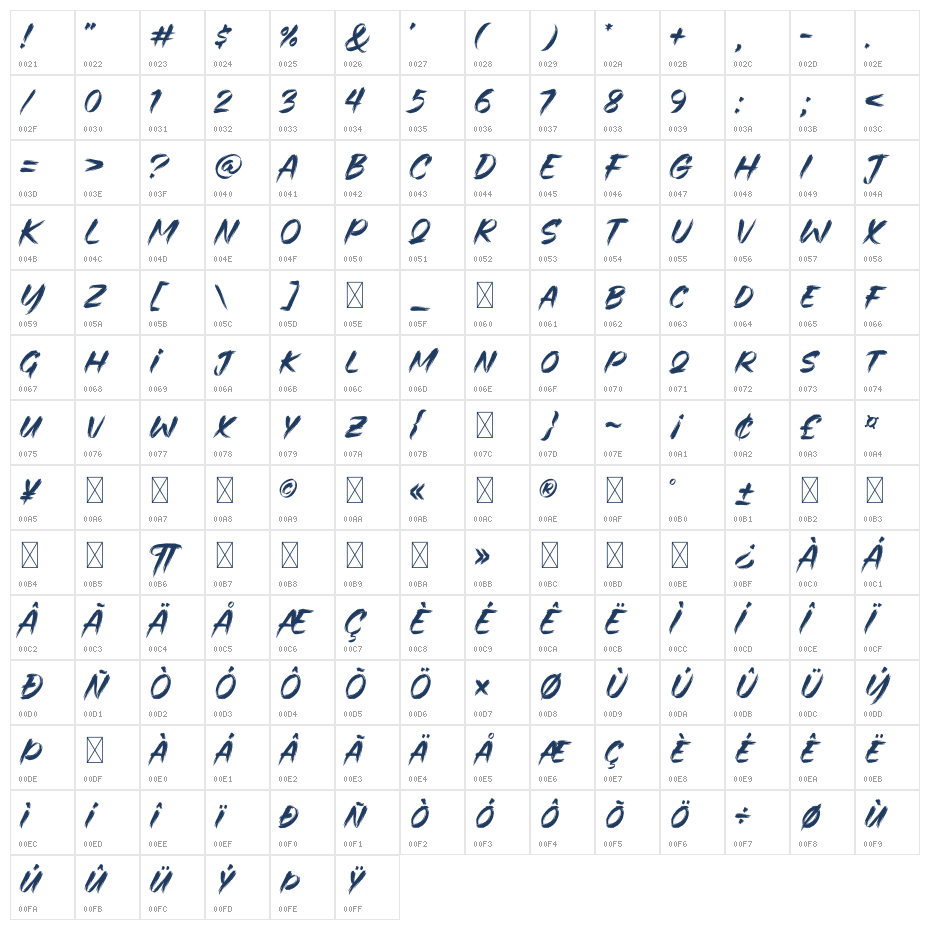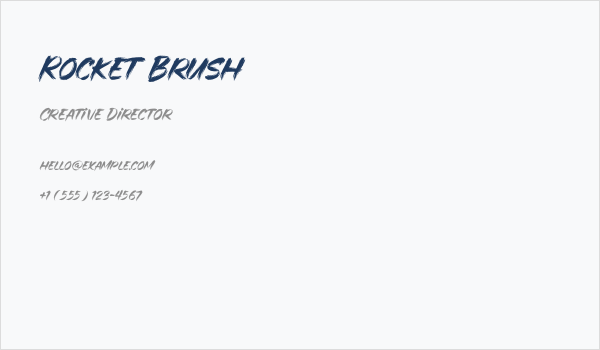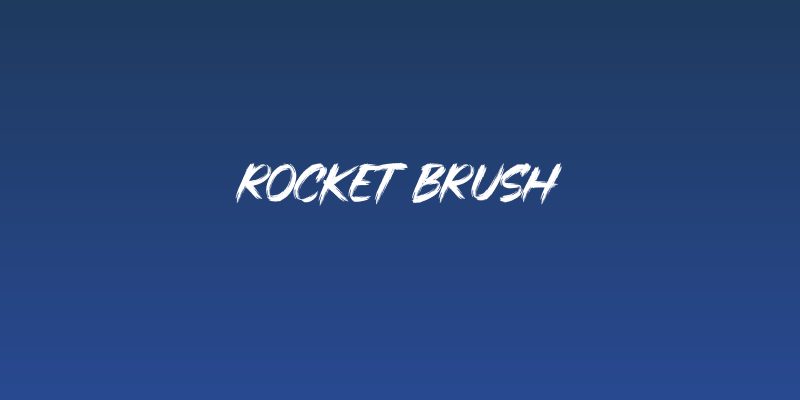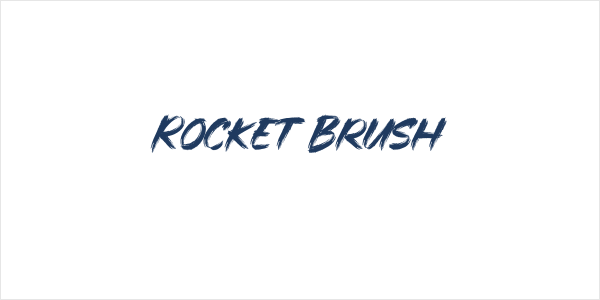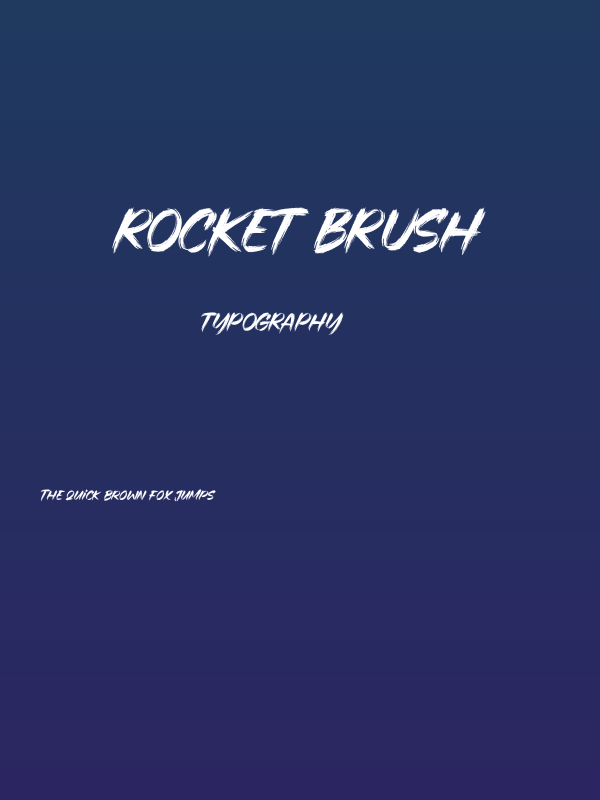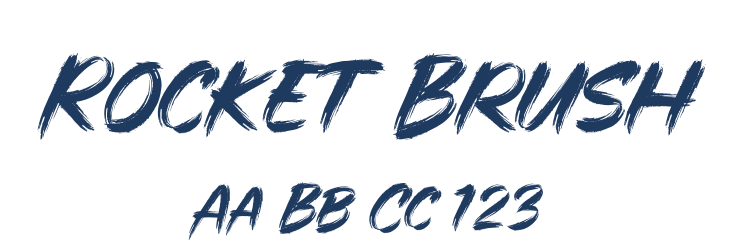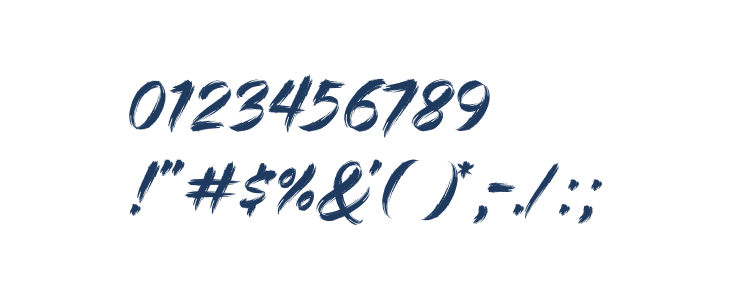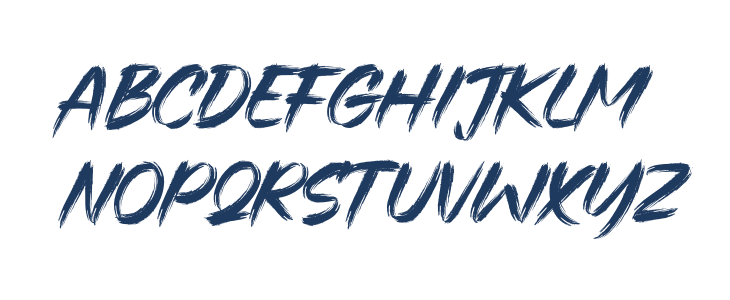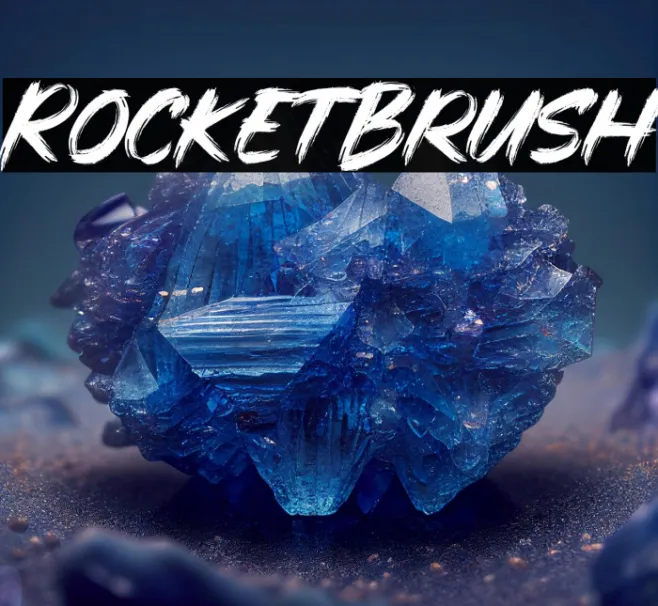
Rocket Brush Font
Rocket Brush Description
A brush script style font with a dynamic, handwritten appearance, featuring sharp, energetic strokes and a casual, artistic feel.
| Overall Style | Casual, Artistic, Dynamic |
| Use Case | Headlines, Logos, Posters, Branding |